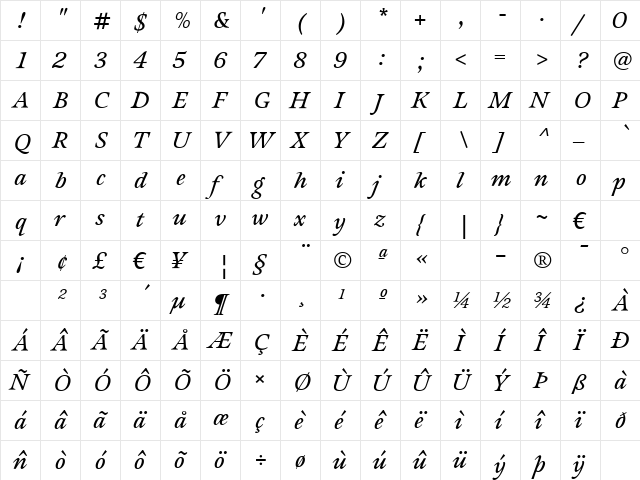
Sovereign-MediumItalic Regular Font Preview
Sovereign-MediumItalic Regular
Design Context for Sovereign-MediumItalic Typeface
Sovereign-MediumItalic offers clean, dependable letterforms without strong stylistic allegiance, making it a practical choice for designers who need flexibility. Its italic angle brings a sense of urgency and motion to the letterforms.
Pro Tip: Use Sovereign-MediumItalic for emphasis, pull quotes, and subheadings where its slanted energy can add rhythm to the layout.